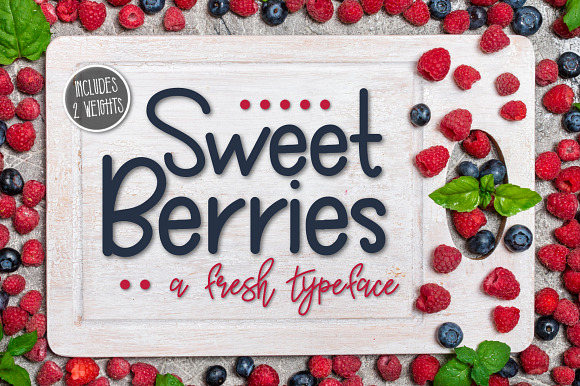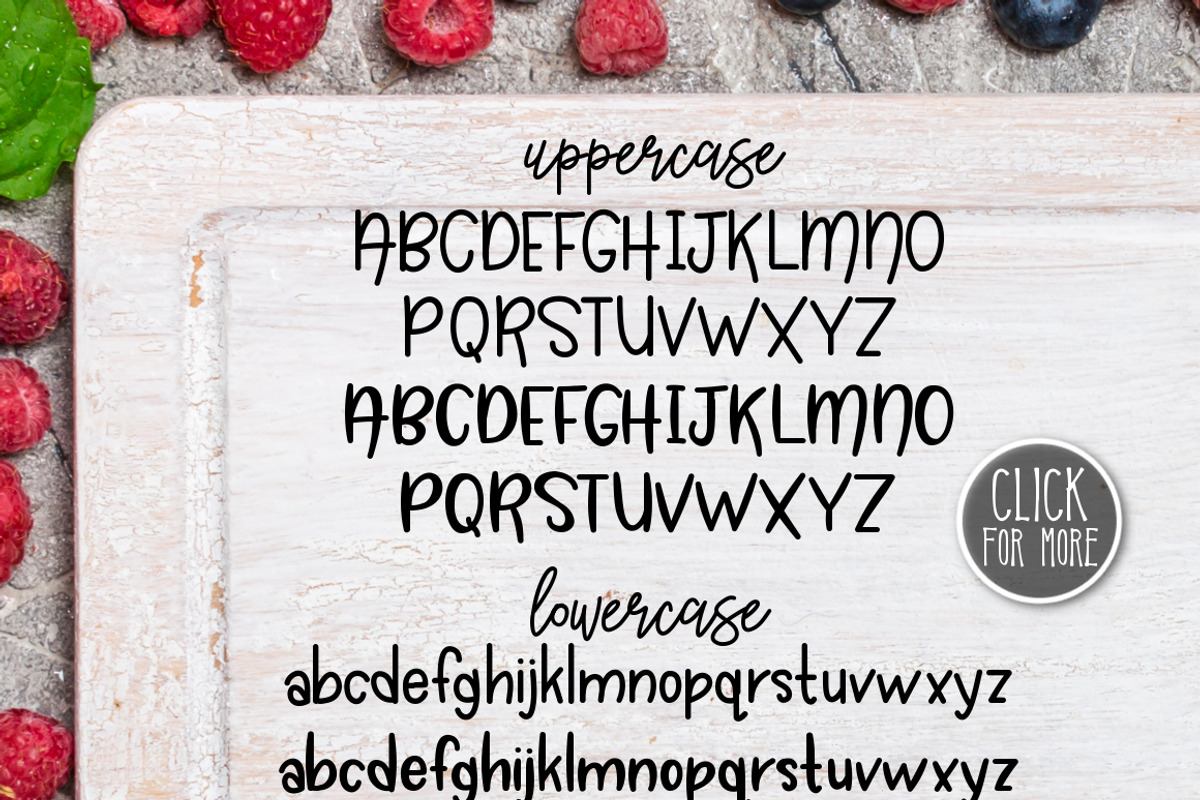
Sweet Berries a Fresh Typeface
Sweet Berries is a cute font that will be great to add to any project.
The download includes 2 ttf font files. One is a monotype font and the other has a little plump added.
Sweet Berries a Fresh Typeface by Kitaleigh fits naturally into Branding, posters, packaging, typography.